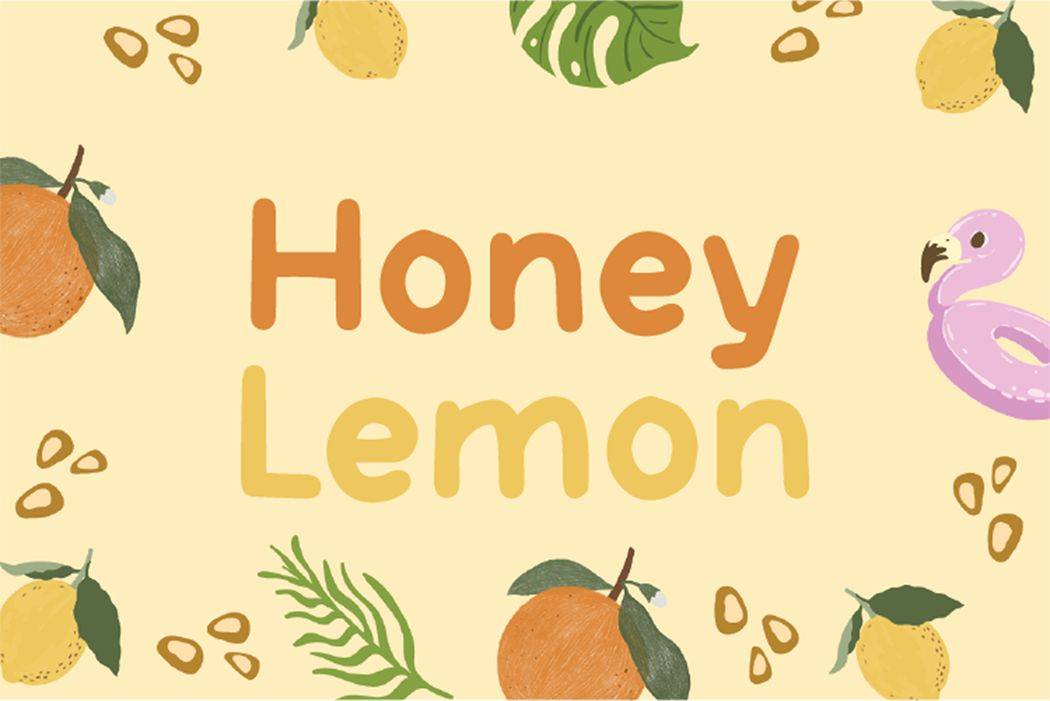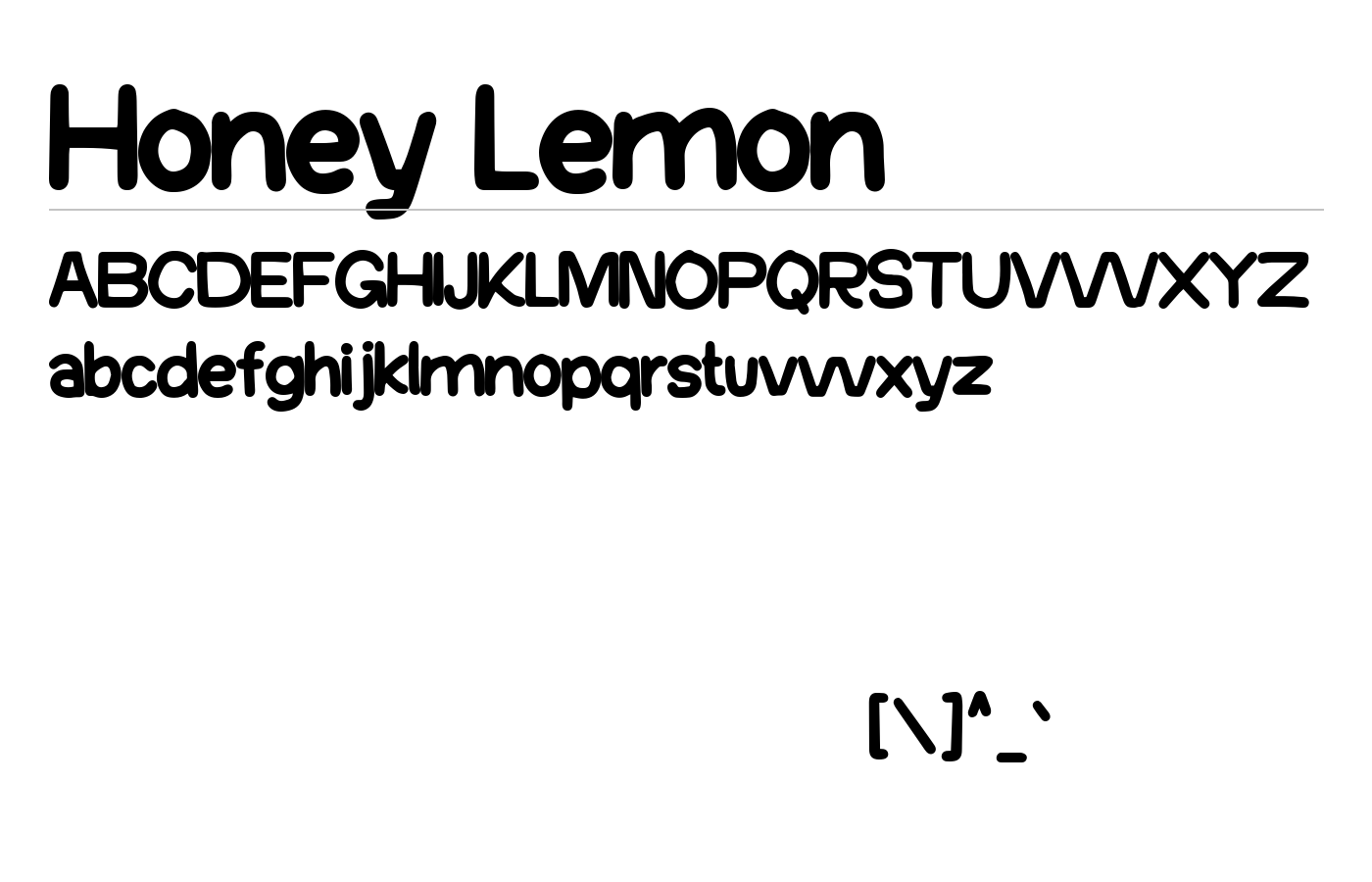
Honey Lemon is a playful, rounded sans serif font with a casual, hand-drawn feel. Its bold weight and wide, soft letterforms make it friendly and approachable, ideal for projects that want to convey warmth and creativity. This font works well for kids’ branding, informal headlines, and fun packaging where a lighthearted, inviting tone is desired.
Honey Lemon Font
About Honey Lemon Font
| Font family | Honey Lemon Font |
| Designer | Lady Hanna |